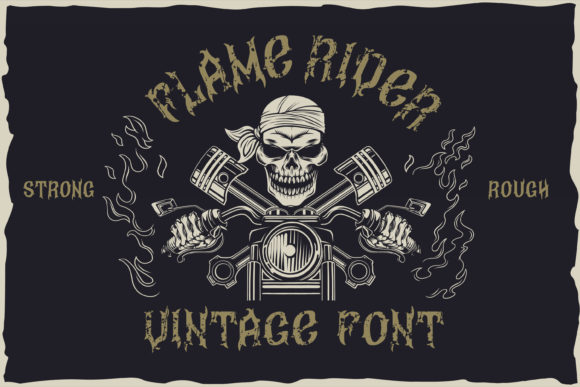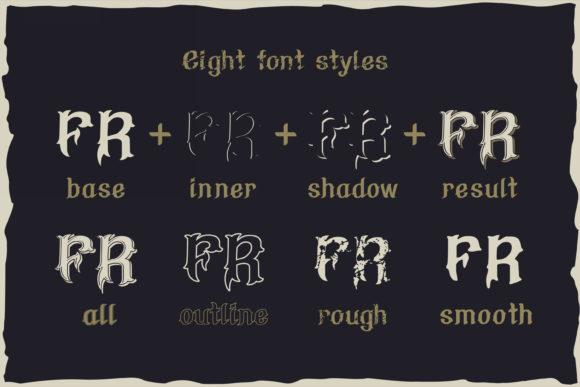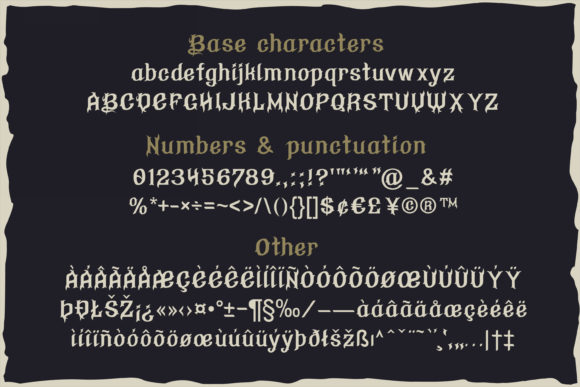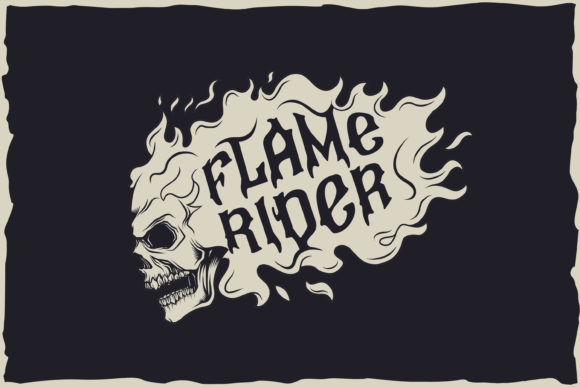
Flame Rider Font: Bold Vintage Display Font for Logo Design
About the Flame Rider Font
Add a touch of class to your work with the Flame Rider Font, a truly exceptional typeface. Flame Rider is a cool, bold and assertive display font. Expertly designed to make your creation look out of this world, this font will look imposing and neat on a variety of ideas, such as branding, labeling or logos.
Flame Rider excels in headlines, logos, and short, impactful statements. Its bold structure commands attention, making it ideal for branding projects needing a strong visual presence or product packaging demanding immediate recognition. However, its assertive style is less suitable for body text or UI elements where readability over extended lengths is crucial.
The font’s core personality is bold and rebellious. It suits brands projecting power, innovation, or a sense of edgy modernity. Think technology startups, action sports apparel, or perhaps a heavy metal band logo.
Pairing Flame Rider with a clean sans-serif like Open Sans for body text creates effective contrast. For a more refined look, consider a classic serif font such as Garamond, allowing Flame Rider to maintain its dominance while adding a touch of sophistication.
Flame Rider Font Usage Examples
Flame Rider Font Example